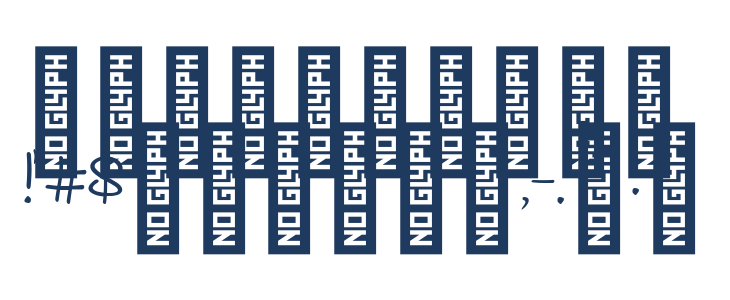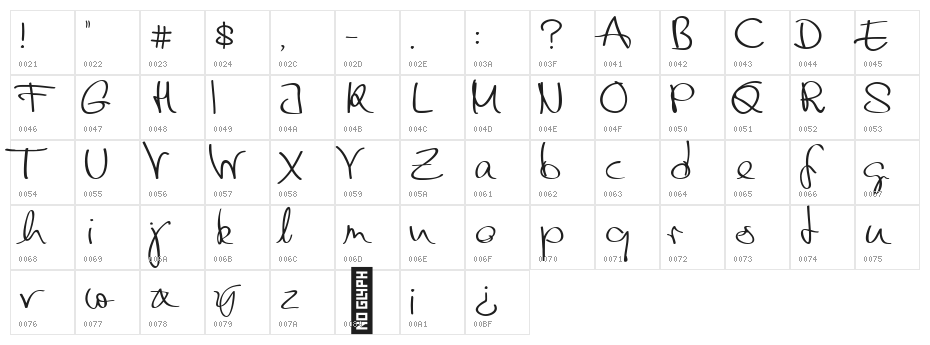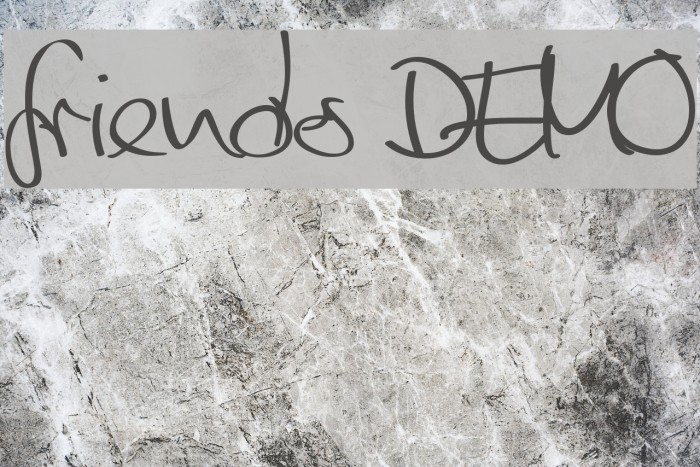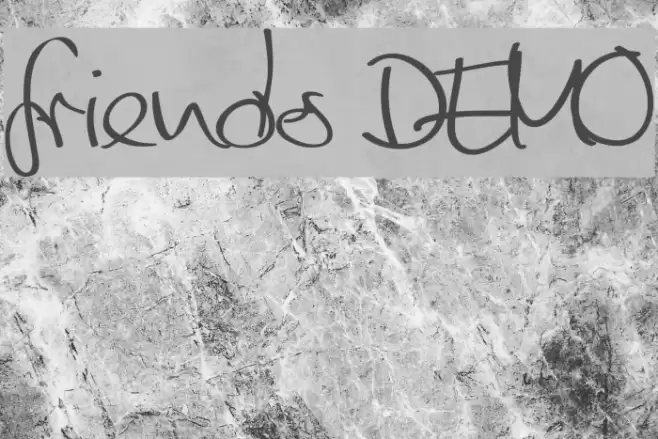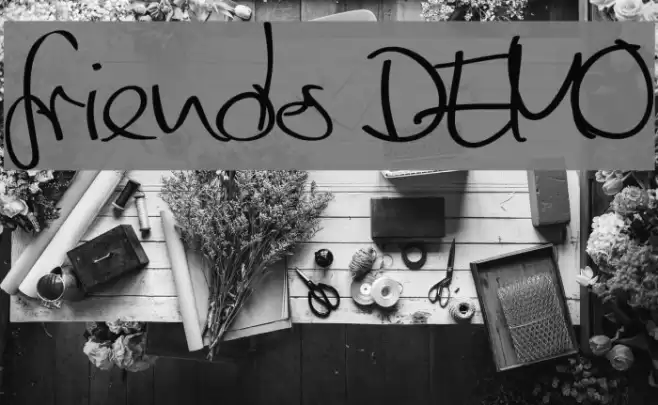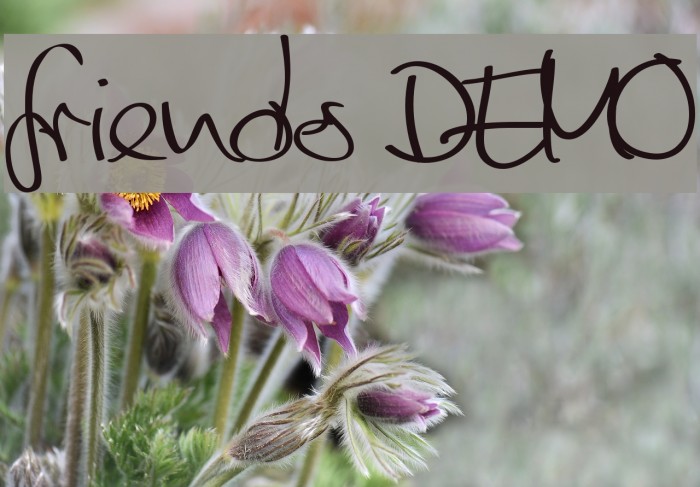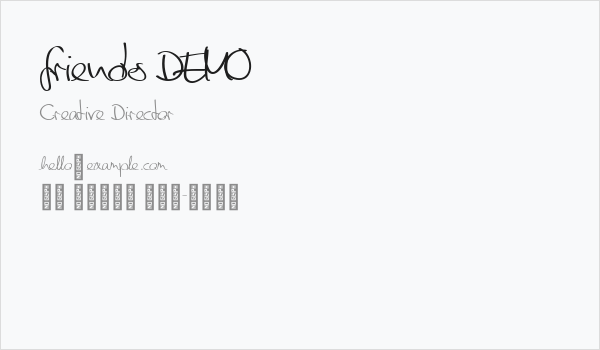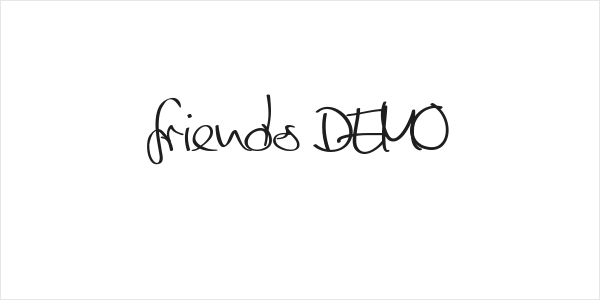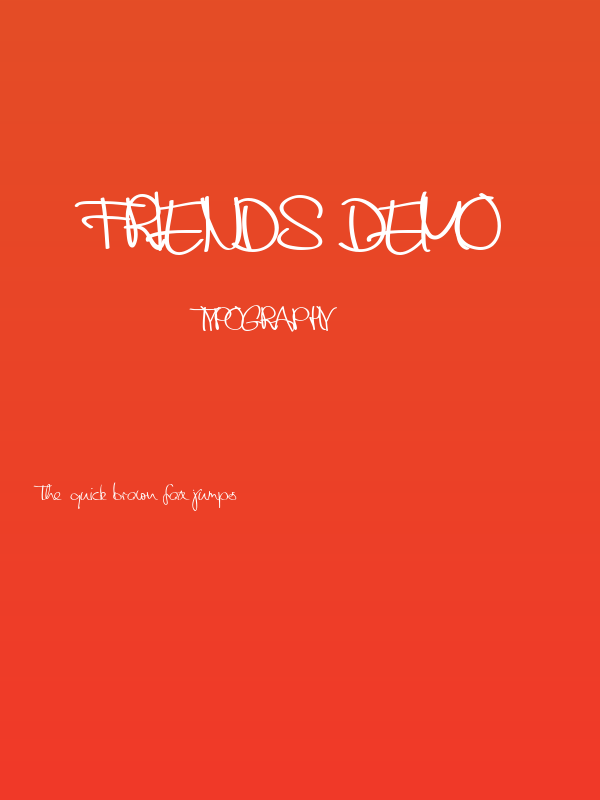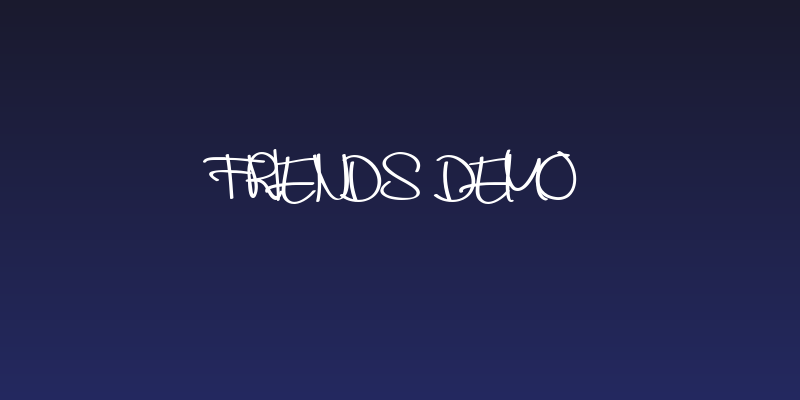
friends DEMO Font
friends DEMO Description
This font exhibits a playful and casual handwritten style, characterized by its fluid and dynamic strokes. The uppercase and lowercase letters are crafted with a sense of spontaneity, giving an informal and approachable feel. The characters are slightly slanted, adding to the relaxed aesthetic. The font maintains a consistent stroke width, ensuring readability while retaining its unique charm. The special characters complement the overall style, enhancing its versatility for various design projects.
| Proposed Projects | Ideal for personal branding, greeting cards, social media graphics, and informal invitations. |